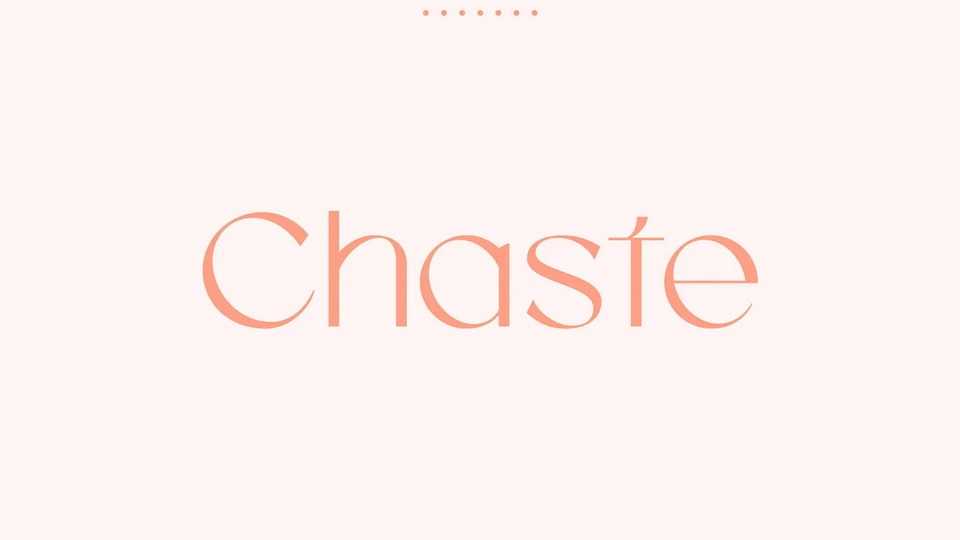
Download Chaste font, a very elegant sans serif typeface featuring clean lines, and sharp edges with oval combinations, very pretty but still has strong straight lines.